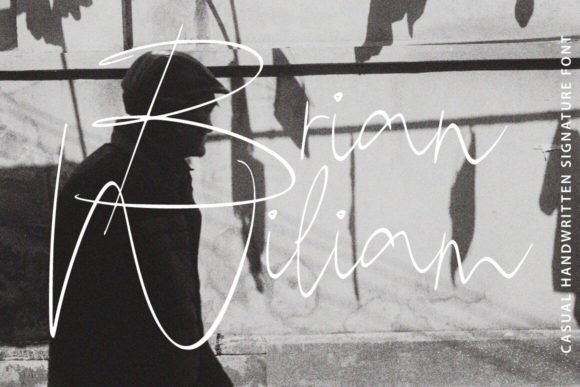
Brian William Font: Elevate Your Designs with a Stylish Signature Font
Brian William is a stylish signature font with a handwritten feel that has gained popularity among designers and artists. This elegant font features flowing letters that resemble natural handwriting, making it perfect for personal signatures, logos, invitations, or any design that requires a classy and personal touch.
What Makes Brian William Font Stand Out?
Brian William font stands out from other fonts due to its unique and elegant handwritten style. The font’s flowing letters are designed to mimic natural handwriting, giving it a personal and sophisticated look. The font’s style is perfect for adding a touch of elegance and class to any design project.
Key Features of Brian William Font
- Handwritten Style: Brian William font features a beautiful handwritten style that gives it a personal and unique touch.
- Elegant and Flowing Letters: The font’s elegant and flowing letters are designed to mimic natural handwriting, making it perfect for personal signatures, logos, and invitations.
- Classy and Sophisticated: The font’s classy and sophisticated style makes it perfect for designs that require a touch of elegance.
- Versatile: Brian William font is versatile and can be used for a variety of design projects, including personal signatures, logos, invitations, and more.
Uses of Brian William Font
Brian William font is perfect for a variety of design projects, including:
- Personal Signatures: The font’s elegant and flowing letters make it perfect for personal signatures.
- Logos: Brian William font can be used to create unique and elegant logos for businesses and brands.
- Invitations: The font’s classy and sophisticated style makes it perfect for invitations, including wedding invitations, birthday invitations, and more.
- Design Projects: Brian William font can be used for a variety of design projects, including brochures, flyers, posters, and more.
Benefits of Using Brian William Font
Using Brian William font offers several benefits, including:
- Unique and Elegant Style: The font’s unique and elegant style sets it apart from other fonts.
- Versatility: Brian William font is versatile and can be used for a variety of design projects.
- Easy to Read: The font is easy to read, making it perfect for designs that require a clear and concise message.
- Customizable: Brian William font can be customized to fit your design needs.
Tips and Tricks for Using Brian William Font
Here are some tips and tricks for using Brian William font:
- Use it Sparingly: Use the font sparingly to avoid overwhelming the design.
- Pair it with Other Fonts: Pair Brian William font with other fonts to create a unique and interesting design.
- Experiment with Colors: Experiment with different colors to find the perfect match for your design.
- Pay Attention to Kerning: Pay attention to kerning to ensure that the font looks elegant and sophisticated.
Brian William font is a stylish signature font with a handwritten feel that is perfect for personal signatures, logos, invitations, or any design that requires a classy and personal touch. Its elegant and flowing letters make it stand out from other fonts, and its versatility makes it perfect for a variety of design projects. By following the tips and tricks outlined in this article, you can use Brian William font to elevate your designs and add a touch of elegance and class.